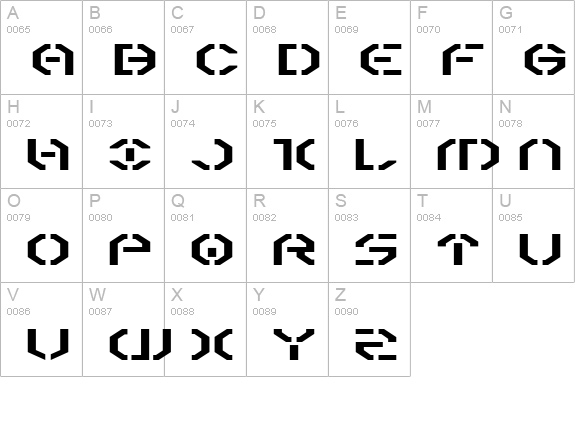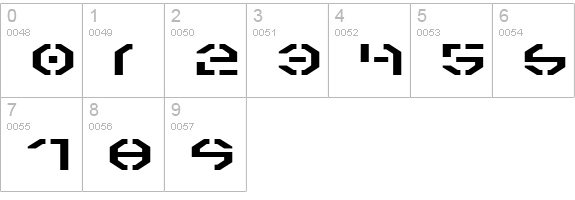
Year 3000 Expanded is a distinctive, extended-width variant in the Year typeface family \xE2\x80\x94 well suited to design and typography projects.
Year 3000 Expanded font is a futuristic and bold typeface that embodies the essence of innovation and modernity. With its sleek and sleek design, this font is perfect for projects that require a cutting-edge and forward-thinking aesthetic. The Year 3000 Expanded font features elongated letterforms and sharp angles that give it a distinct and edgy look. This font is freely available to download at FontsMarket.com, making it easily accessible for designers and creatives looking to add a touch of futurism to their work. Whether you're designing a sci-fi poster, creating a high-tech website, or developing a futuristic branding project, Year 3000 Expanded font is sure to make a statement. Embrace the future with this dynamic and eye-catching font today!